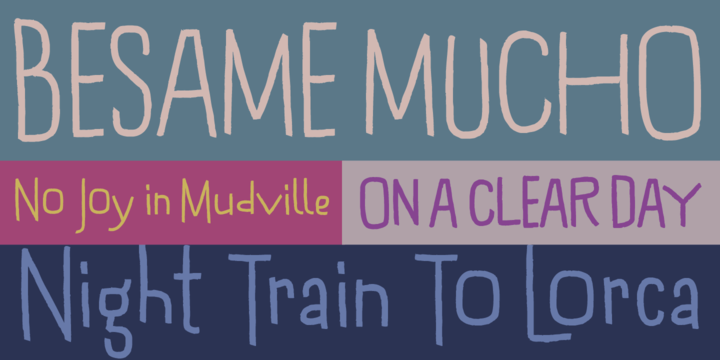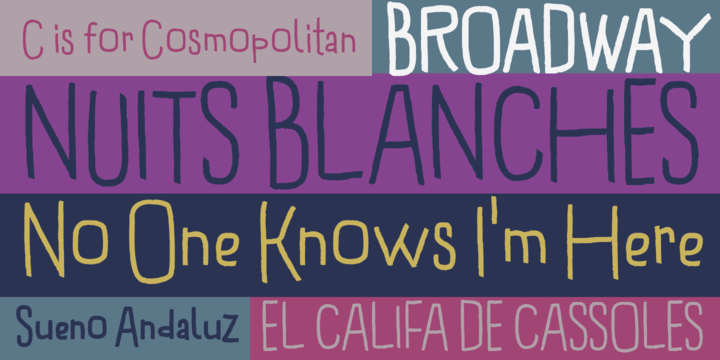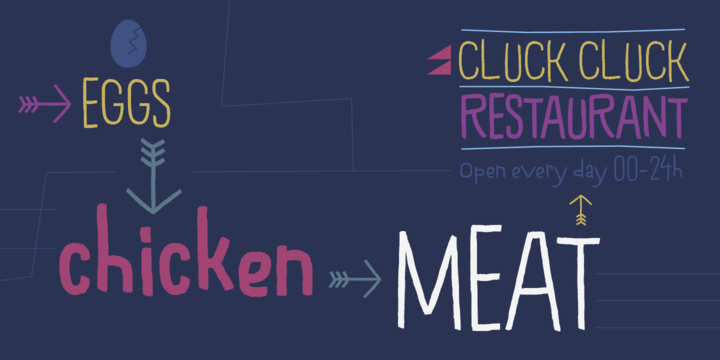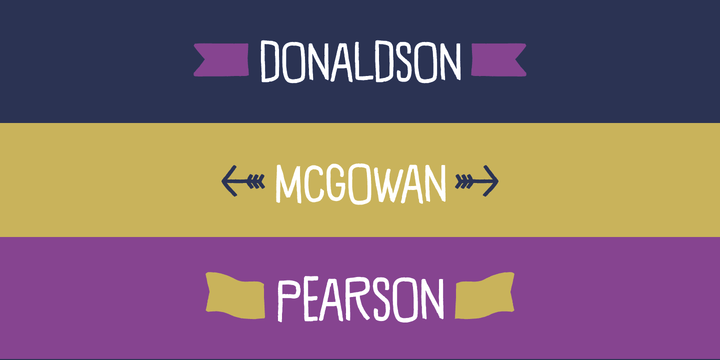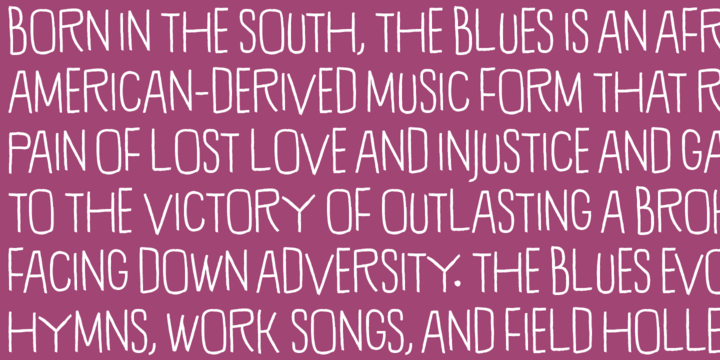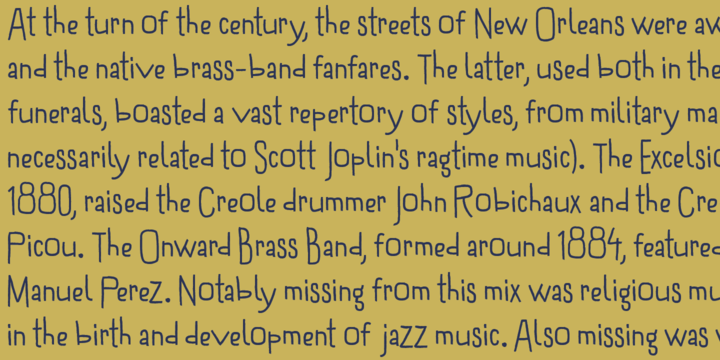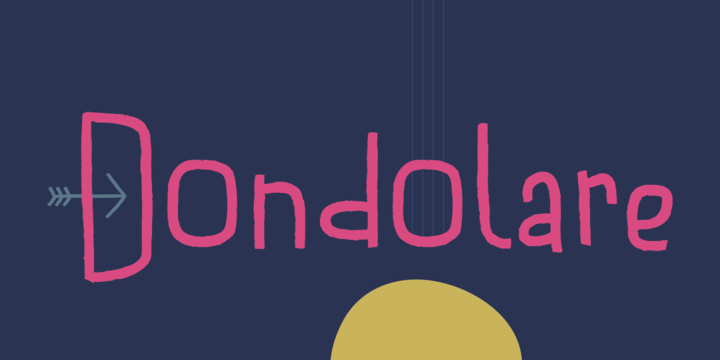
Dondolare Font: A Simple yet Versatile Hand-Drawn Font Family
Are you tired of using the same old fonts in your designs? Look no further than the Dondolare Font, a simple hand-drawn font family that’s perfect for adding a personal touch to your typography. With its squarish look and feel, Dondolare is ideal for a wide range of design projects, from crafting and lettering to digital design and beyond.
What is Dondolare Font?
Dondolare is a hand-drawn font family that’s characterized by its squarish shape and smooth lines. The font comes in two weights, making it versatile enough for use in a variety of design applications. Whether you’re looking to add a playful touch to your design or create a more serious, professional look, Dondolare has got you covered.
Key Features of Dondolare Font
• Simple Hand-Drawn Design: Dondolare’s hand-drawn design gives it a unique, personal feel that’s perfect for designers who want to add a touch of personality to their work.
• Squarish Look and Feel: The font’s squarish shape makes it perfect for use in designs where a bold, geometric look is desired.
• Two Weights: Dondolare comes in two weights, making it versatile enough for use in a wide range of design applications.
• Extended Latin Character Set: The font supports an extended Latin character set, making it suitable for use in designs that require a wide range of characters.
Uses for Dondolare Font
Dondolare is a versatile font that’s perfect for use in a wide range of design applications. Here are just a few ideas to get you started:
• Crafting and Lettering: Dondolare’s hand-drawn design makes it perfect for use in crafting and lettering projects, such as making cards, gift tags, and other paper crafts.
• Digital Design: The font’s squarish shape and smooth lines make it well-suited for use in digital designs, such as social media graphics, blog posts, and website headers.
• Branding and Packaging: Dondolare’s unique design makes it perfect for use in branding and packaging projects, such as logos, labels, and product packaging.
Why Choose Dondolare Font?
So why choose Dondolare font for your next design project? Here are just a few reasons:
• Unique Design: Dondolare’s hand-drawn design gives it a unique, personal feel that’s sure to set your designs apart.
• Versatility: The font’s two weights and extended Latin character set make it versatile enough for use in a wide range of design applications.
• Easy to Read: Dondolare’s smooth lines and squarish shape make it easy to read, even at small sizes.
In conclusion, Dondolare font is a simple yet versatile hand-drawn font family that’s perfect for designers and crafters who want to add a personal touch to their work. With its squarish look and feel, two weights, and extended Latin character set, Dondolare is ideal for use in a wide range of design applications. So why not give it a try and see the difference it can make in your designs?
Whether you’re a professional designer or a crafty hobbyist, Dondolare font is a great choice for anyone looking to add a unique touch to their typography. So go ahead, get creative, and see what amazing designs you can create with Dondolare font!